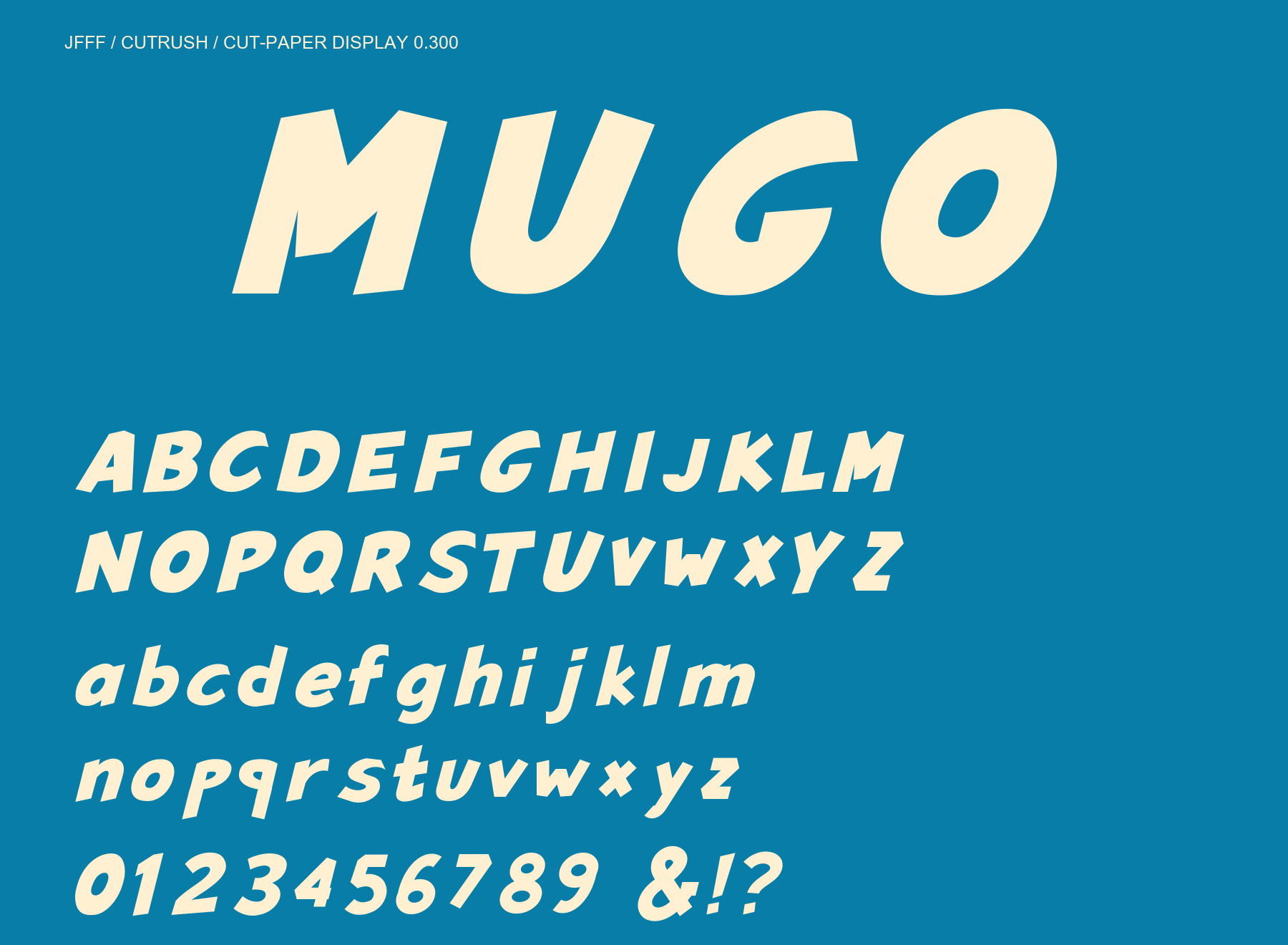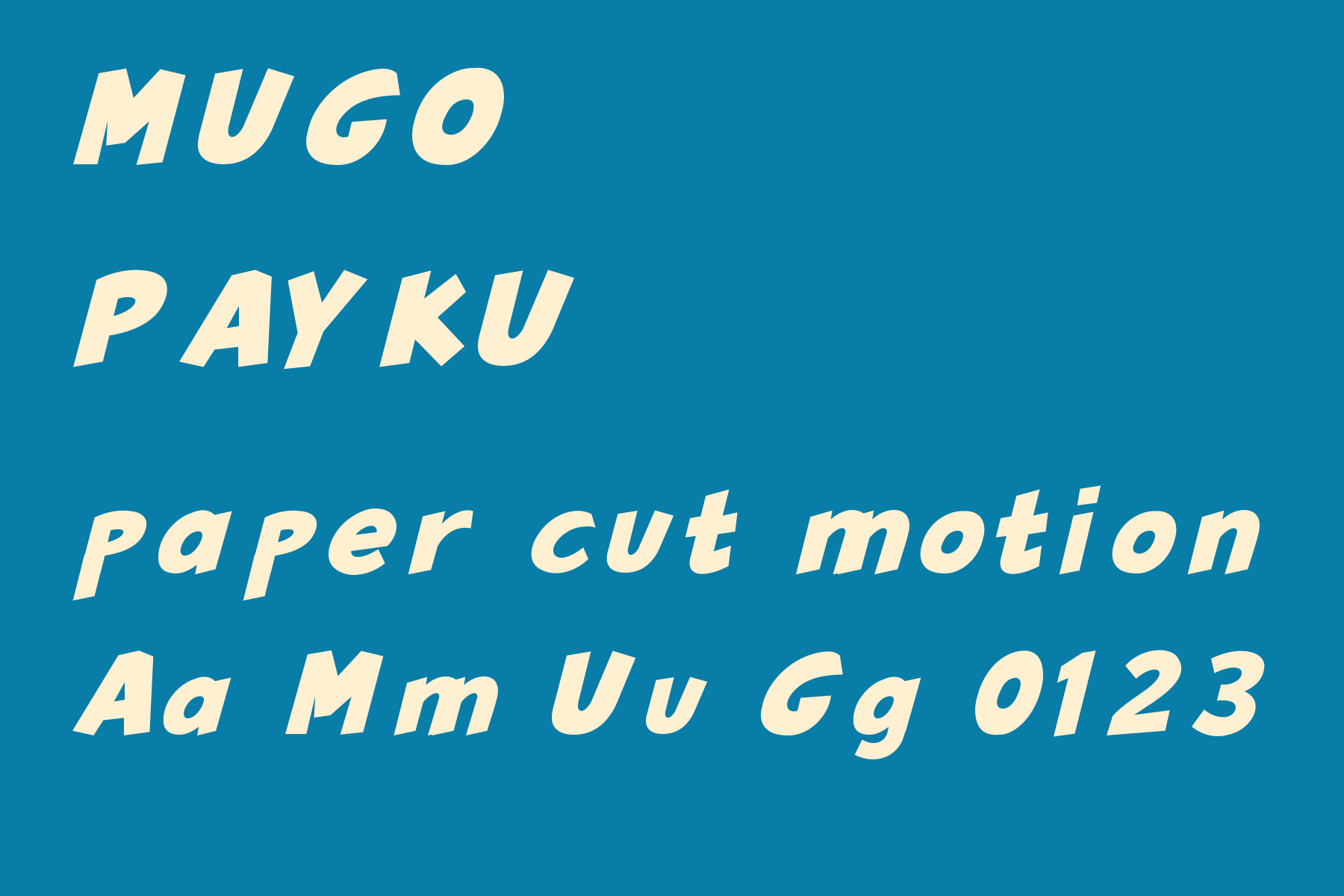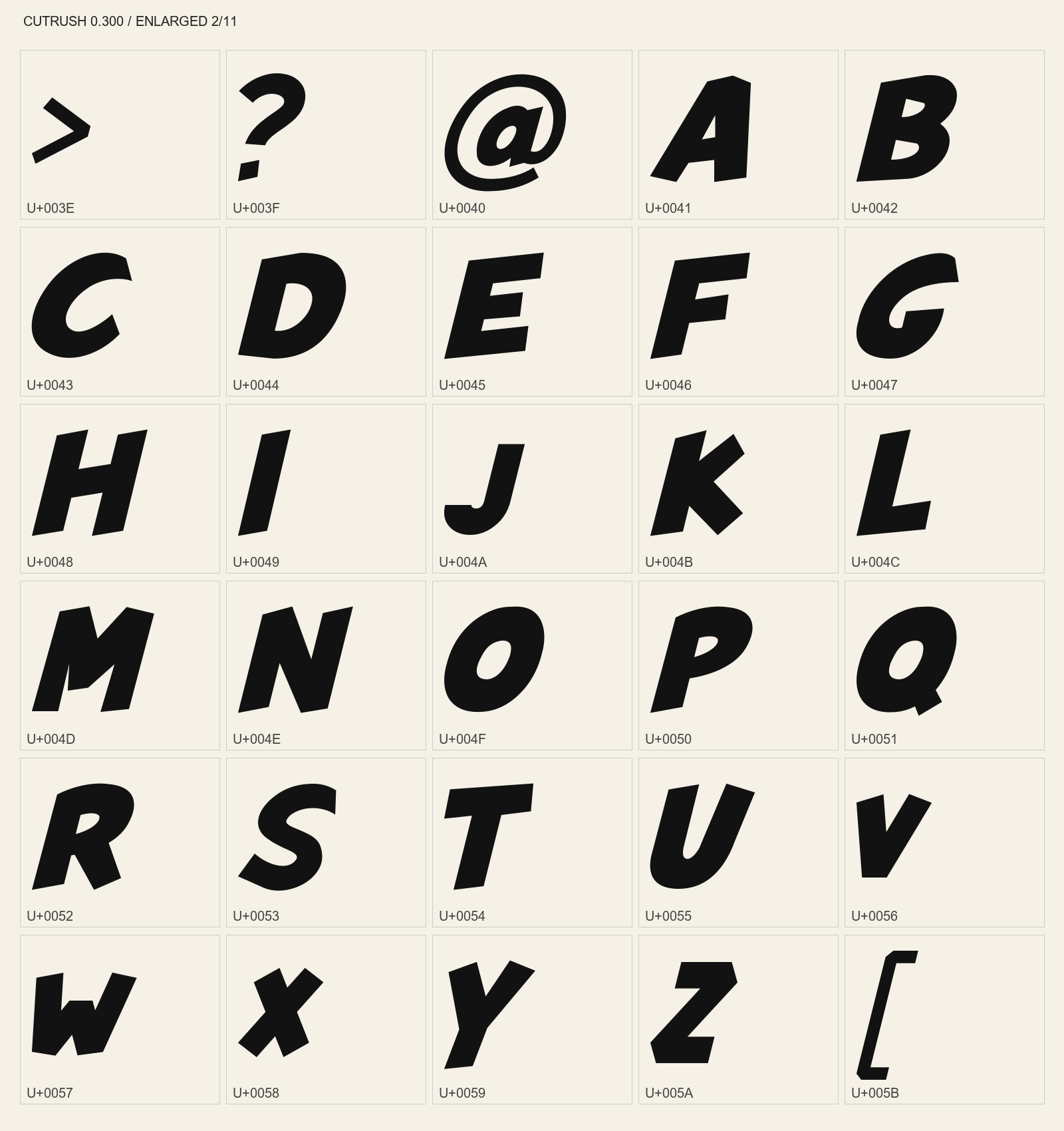
Free chunky hand-cut display font
Cutrush uppercase, lowercase and figures
Cutrush is a Latin display face with ultra-heavy bodies leaning right, slanted cut stroke endings and asymmetric outlines. The paper-cut structure of M, U, G, O, P, A, Y and K carries through both cases and the extended set. Version 0.300 refines the lowercase, B, D, H, N, S, figures 2 and 3, extended characters and punctuation. 330 characters including spaces, TTF and WOFF2 in one ZIP, free under SIL OFL 1.1. Best for large titles, posters and short phrases. No Hangul or print-wear texture. Rendering was checked at 24, 64 and 160 px; full kerning, OS and browser compatibility checks are still pending.